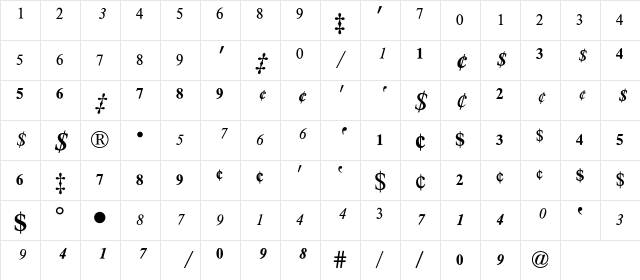
Times Fractions BQ Regular
Design Context for Times Fractions BQ
Times Fractions BQ is a composed and adaptable typeface that performs quietly and consistently across a wide range of design contexts.